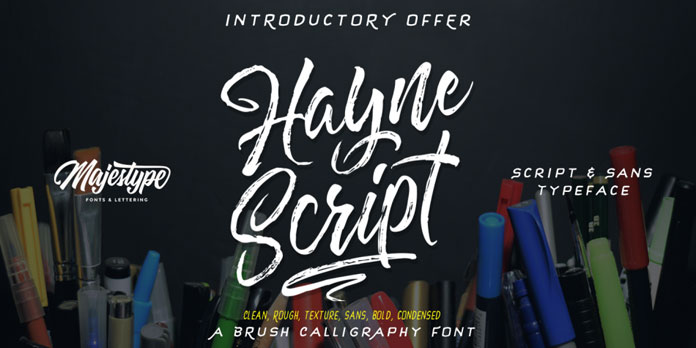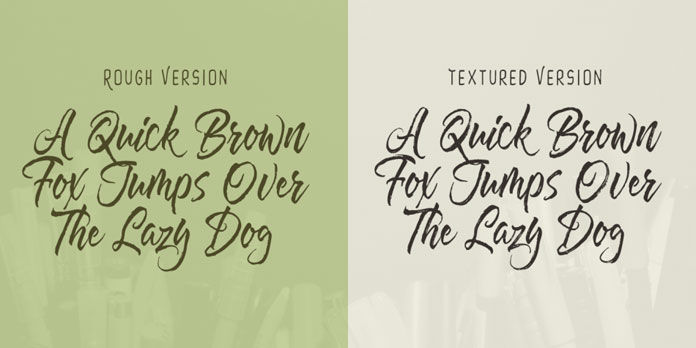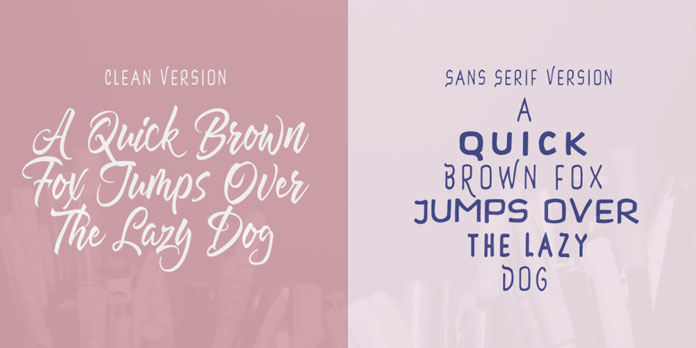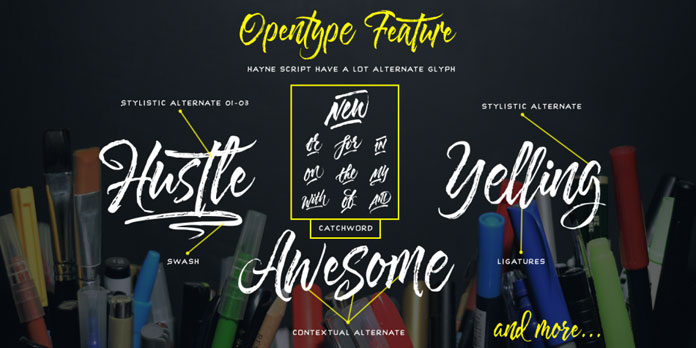
The Hayne type family, a brush script and display sans font collection designed by Dexsar Harry Anugrah.
Designed in 2016 by Dexsar Harry Anugrah of foundry Majestype, Hayne is a versatile hand-drawn font family that comprises a script and sans version. Included as rough, textured, and clean style, the script fonts can be combined easily with their sans companions that come in a regular and bold as well as condensed version. Dexsar Harry Anugrah made these typefaces using a brush pen and regular pen in order to give them a natural look and feel. Please read more below the image or click on the following link to get further information.
Equipped with an extensive character set, additional swashes, alternates, catchwords, and multi language support, the handmade font collection is well suited for stylish invitations, quotes, t-shirts, branding or versatile typographic poster designs. There are no limits to your creativity! As already mentioned, the different styles can be mixed easily. For additional information, feel free to follow the link below.